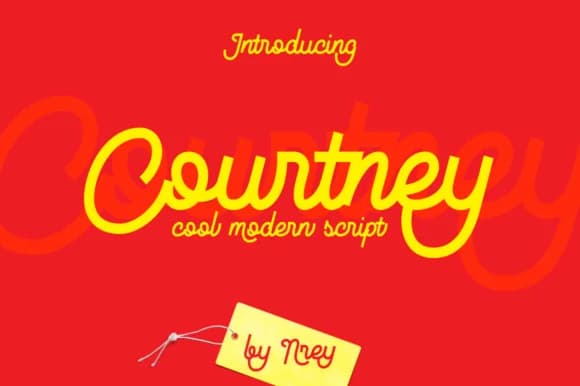
Courtney by NREY is a retro-inspired monoline script that masterfully balances geometric precision with expressive character. The font's distinctive linear construction and sharp edges modernize the classic cursive form, creating a typeface that feels both contemporary and nostalgic without relying on excessive ornamentation. Every letterform demonstrates thoughtful design intentionality, ensuring the script commands attention while maintaining excellent legibility across various scales and practical applications.
This typeface excels across luxury branding contexts where refined aesthetics directly influence brand perception and customer response. Consider cosmetics packaging for independent skincare and wellness brands, custom fashion labels, high-end wedding invitation suites, boutique restaurant menus, and premium greeting card designs that deserve distinctive typography. The consistent monoline stroke weight ensures the font performs with equal effectiveness whether deployed as a bold headline statement or as a carefully integrated element within a complete logotype system. Beyond traditional print work, Courtney adapts beautifully to event stationery design, creative service branding for independent designers and illustrators, and editorial layouts that require personality without sacrificing sophistication.
Courtney Font is a script font that shines as a display or heading face. Pair it with a clean sans-serif or serif font for body text β the contrast creates a clear hierarchy while the two styles stay balanced and easy to read.
Courtney Font
by NREY